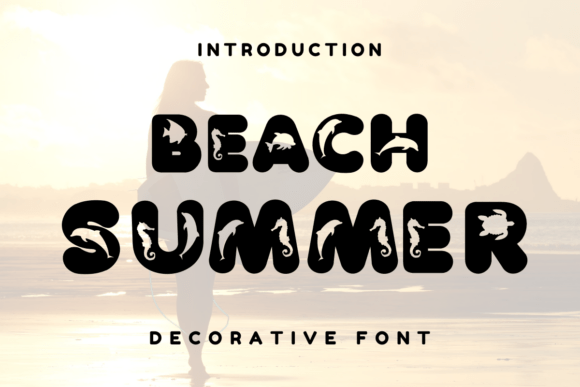
The Perfect Font for a Sunny Day
Have you ever found yourself daydreaming about a lazy summer day at the beach, surrounded by the sound of waves and the warmth of the sun on your skin? For designers, that feeling of serenity can be a spark of inspiration, and today, I’m excited to share with you a font that captures that carefree spirit – the Beach Summer Font.
This adorable decorative font is perfect for adding a touch of whimsy to your designs. Whether you’re taking notes, writing a diary, or creating greeting cards, the Beach Summer Font is a delightful choice. And its versatility doesn’t stop there – it’s also ideal for banners, mugs, cards, shirts, stationery, social media posts, and more!
Beach Summer Font Key Features
- Font Family: Beach Summer Font
- Unique Characteristics: Hand-drawn, playful, and whimsical design, perfect for beach-themed projects, summer vibes, and casual typography
- Character Count: 240+ glyphs, including Latin, Cyrillic, and Greek alphabets, punctuation, and special characters
Beach Summer Font Review
I recently had the chance to work with the Beach Summer Font, and I must say it’s a unique and refreshing addition to any design project. Here’s what I like and dislike about it.
- Playful and casual vibe: The Beach Summer Font captures the carefree spirit of a summer day at the beach.
- Perfect for creative projects: Its whimsical nature makes it ideal for travel, food, or lifestyle brands.
- Customizable: The font comes in multiple weights and styles, allowing for flexibility in your design.
- Limited legibility: In smaller text sizes, the font can become difficult to read.
- Not suitable for formal projects: The font’s casual nature may not be suitable for corporate or serious branding.
Overall, the Beach Summer Font is a fun and creative addition to any design project. While it has its limitations, it’s perfect for those looking to add a playful touch to their branding or marketing materials.
The Beach Summer Font is ideal for creating summer-themed designs, such as:
– Beach party invitations
– Summer-themed social media graphics
– Travel brochures
– Beach-themed advertisements
Alternatives to Beach Summer Font